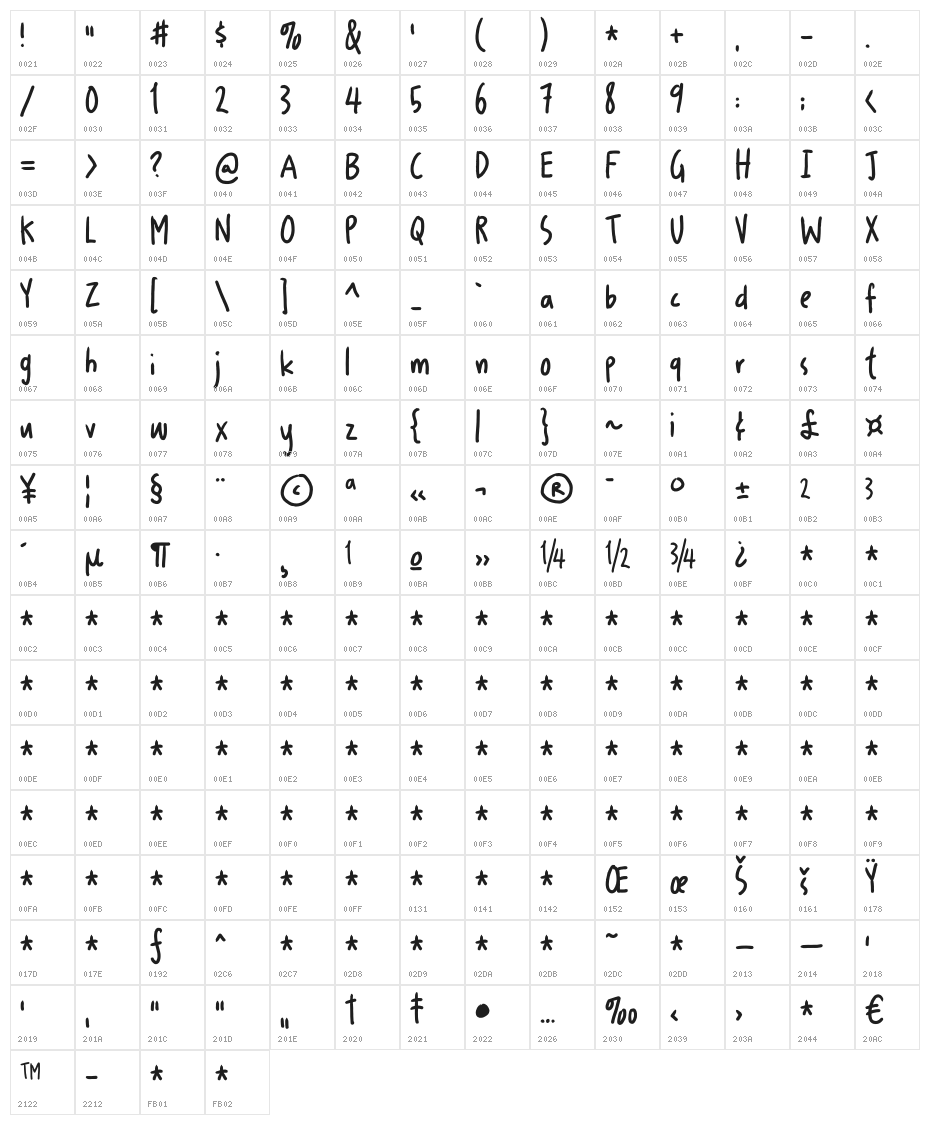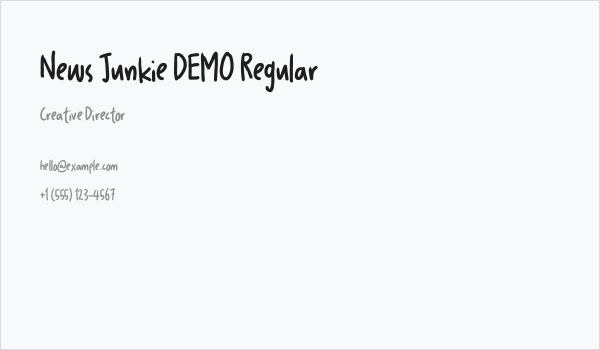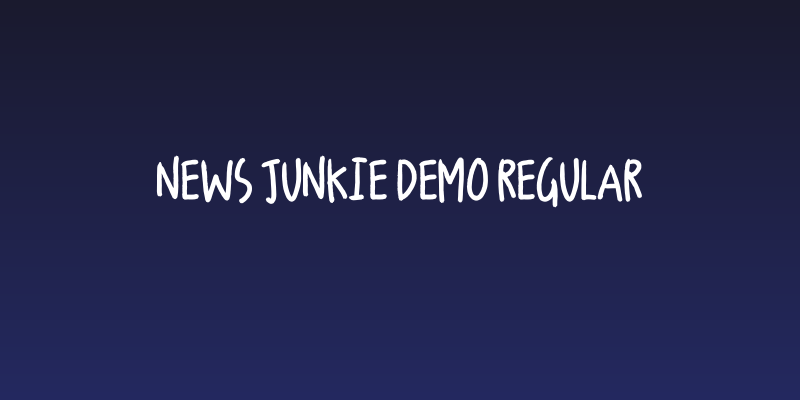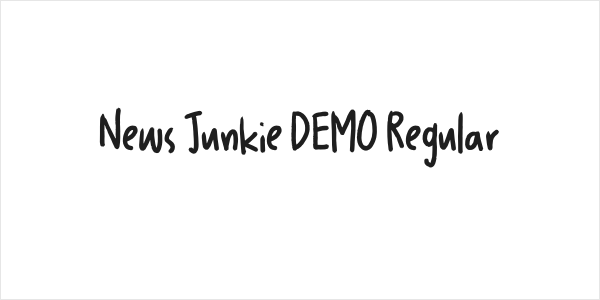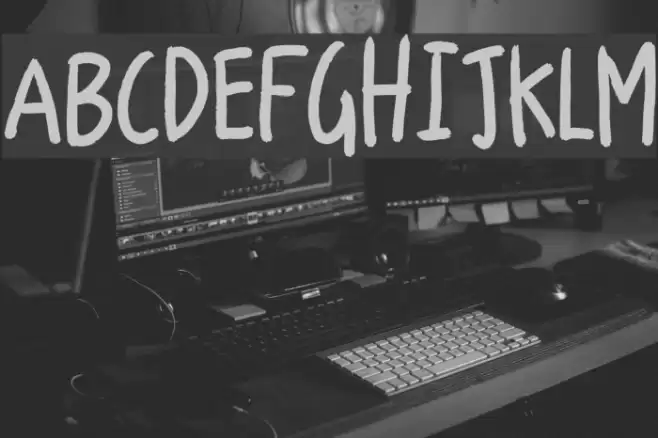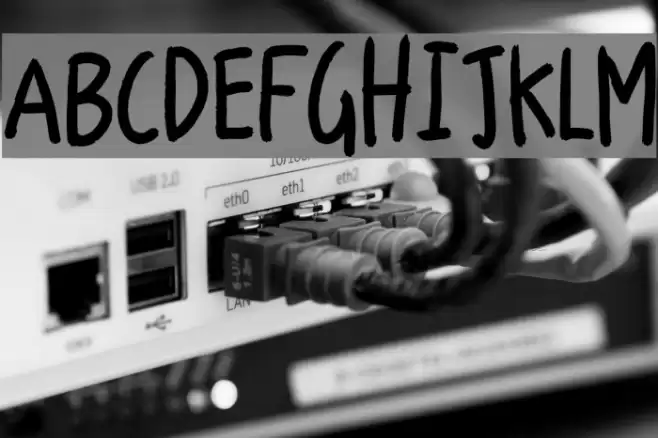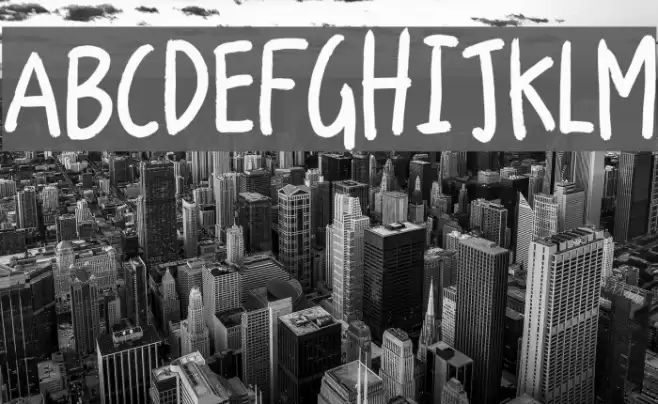
News Junkie DEMO Regular Font
News Junkie DEMO Regular Description
This font features a handwritten style with a casual and informal appearance. The letters are slightly irregular, giving it a personal and authentic feel. The strokes are bold and consistent, with a slight slant that adds to its dynamic character. The uppercase and lowercase letters are well-proportioned, maintaining readability while conveying a sense of spontaneity. The numerals and special characters are crafted with the same playful touch, making them blend seamlessly with the alphabet. This font is ideal for projects that require a human touch or a creative flair.
| Overall Style | Casual |
| Use Case | Logos, Headlines, Informal Text |
| Proposed Projects | Great for personal branding, creative projects, social media graphics, and informal invitations. |